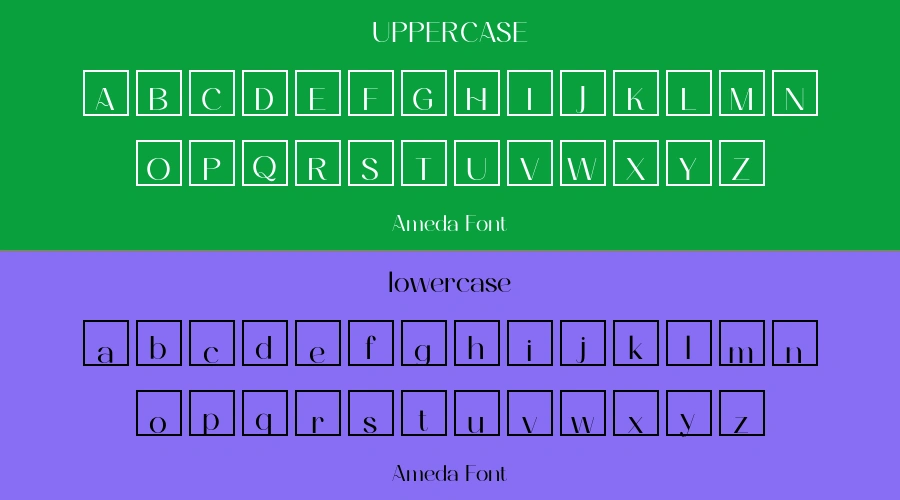
About Ameda Font
Designed with precision, Ameda Font merges original character with technical precision in every character. This versatility makes it particularly effective for film titles, where refinement and technical merit directly impact communication quality. Each letterform demonstrates meticulous craftsmanship.
Technical excellence shines through elements like convex bowls and mid-word alternates, enhancing typographic versatility. In book chapters settings, Ameda Font proves its worth through superior small text clarity. The thoughtful execution of counter shape and historical reference ensures professional results.